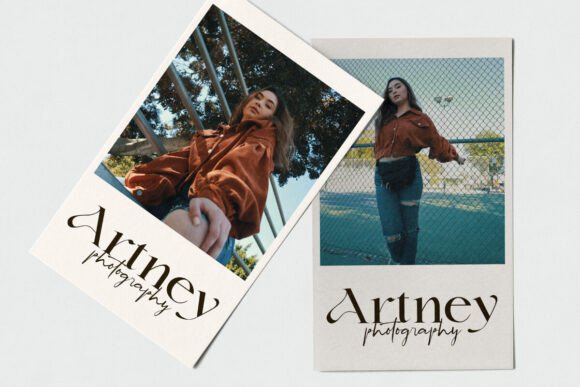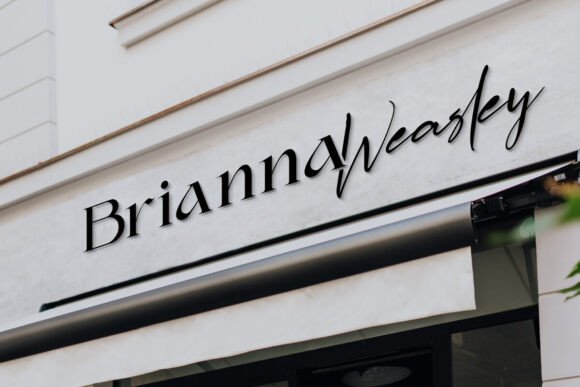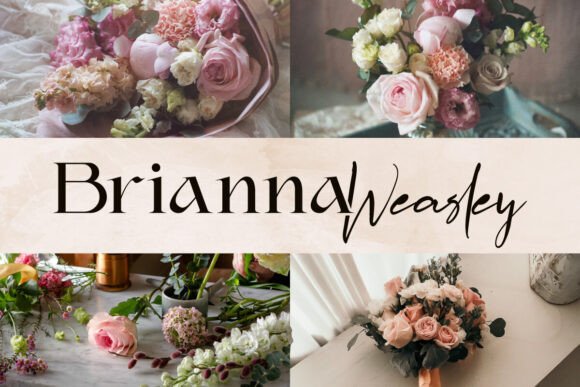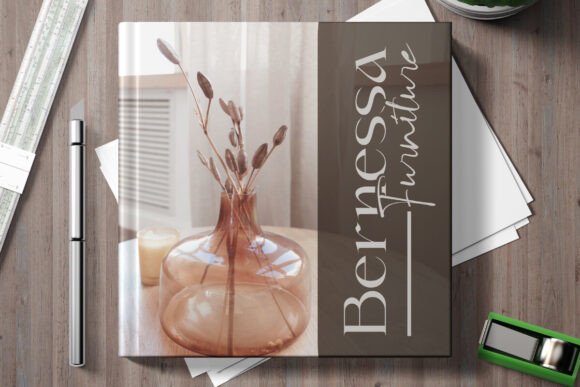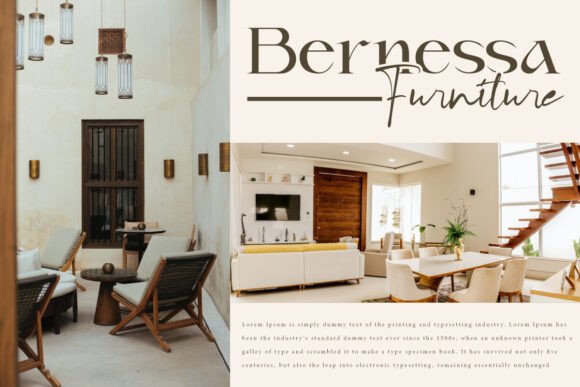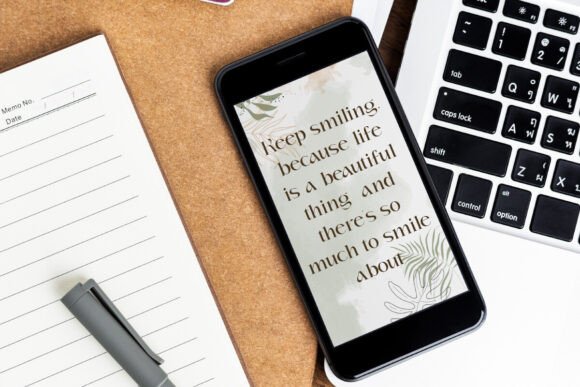
The Elusive Font: A Designer’s Love Affair with Brianna Weasley Font
I still remember the exact moment I fell in love with the Brianna Weasley Font. I was working on a project for a high-end fashion brand, and I was struggling to find the perfect font to match their luxurious aesthetic. The client was specific about wanting something elegant, yet modern, and I was on a mission to deliver. After hours of scouring font websites and testing out different options, I stumbled upon Brianna Weasley Font, and it was love at first sight! 💕
- ✨ Elegant and luxurious feel: The thin and thick lines in this font are perfectly balanced, giving it a sophisticated and high-end look.
- ✅ Versatile: Brianna Weasley Font is suitable for a wide range of businesses, from accessories and jewelry to beauty products, entertainment, and more!
- 💯 Well-spaced and kerned: The font has a fancy set with perfectly managed spacing and kerning, making it a joy to work with.
- 📚 Comprehensive character set: It comes with a full set of uppercase and lowercase basic characters, numbers, punctuation, and symbols.
- ⚠️ Limited use for body text: Due to its elegant and luxurious feel, Brianna Weasley Font might not be the best choice for long-form body text. It’s better suited for headings, titles, and short paragraphs.
- 🤔 Not ideal for very small sizes: The font’s intricate details and thin lines might get lost when used at very small sizes.
- Experiment with OpenType features, such as ligatures and stylistic alternates, to add more flair to your design.
- Use the font for headings, titles, and short paragraphs to add a touch of elegance to your document.
The Designer Inspiration Behind Brianna Weasley Font:
The story behind Brianna Weasley Font is one of passion and creativity. The designer, inspired by the magical world of Harry Potter, aimed to create a font that embodied the elegance and sophistication of the wizarding world. With its luxurious feel and modern look, Brianna Weasley Font is sure to cast a spell on your design projects! 🔮
| What is the best use for Brianna Weasley Font? | Brianna Weasley Font is ideal for headings, titles, and short paragraphs, particularly for businesses that want to convey a luxurious and elegant image. |
| Is Brianna Weasley Font suitable for body text? | While it’s possible to use Brianna Weasley Font for body text, it’s not the best choice due to its elegant and luxurious feel. It’s better suited for display text. |
| Is Brianna Weasley Font available in different weights or styles? | Yes, Brianna Weasley Font comes in a range of weights and styles, making it versatile and adaptable to different design projects. |